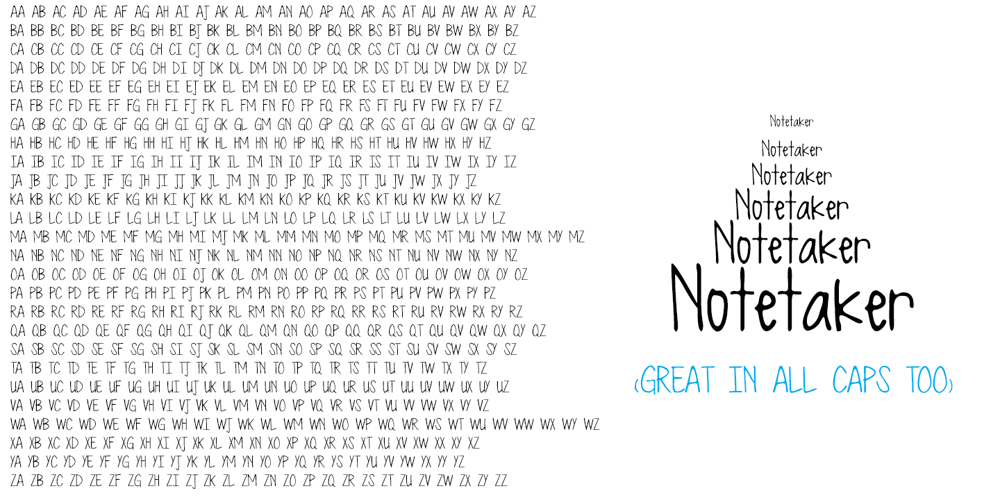
Notetaker Font Family was designed by Corien Bennink and published by Corien’s Handwritingfonts. Notetaker contains 1 styles and family package options. Notetaker is a quickly written yet very neat looking font, perfect for notetaking!